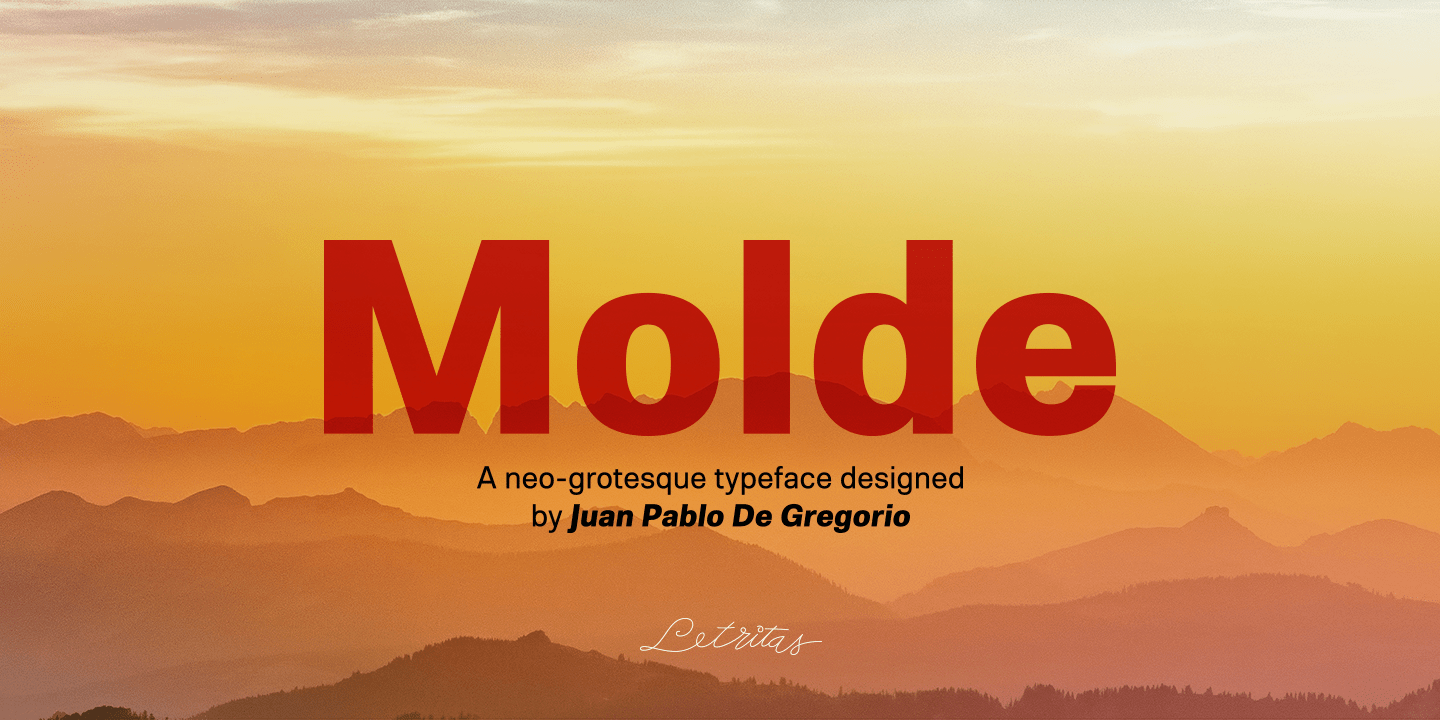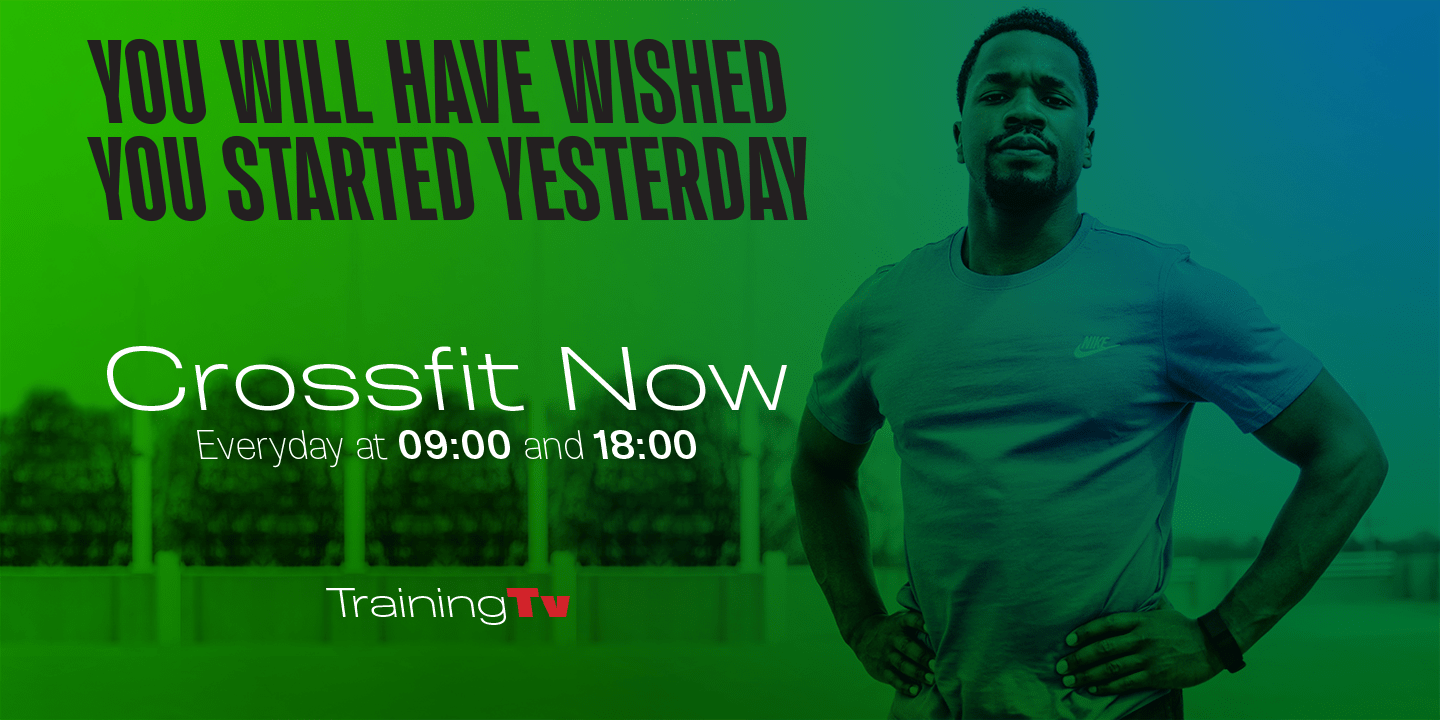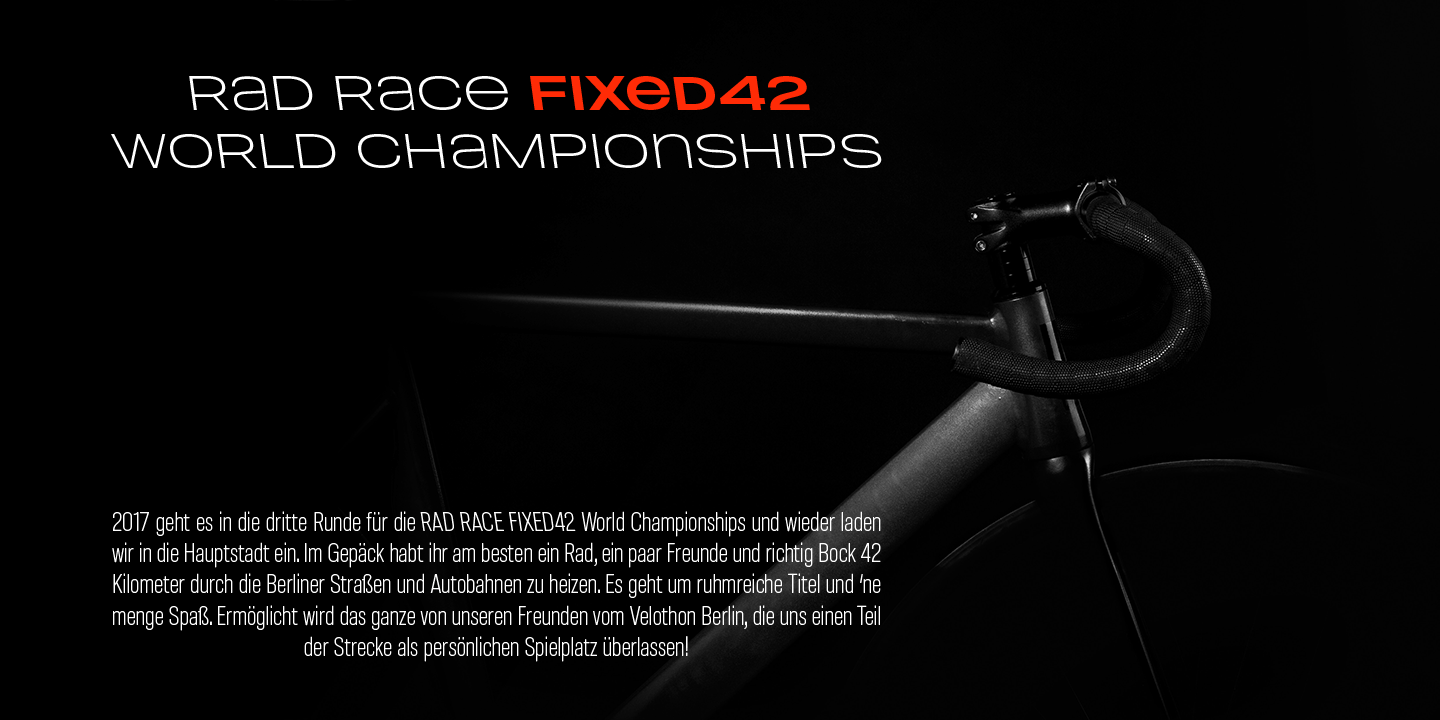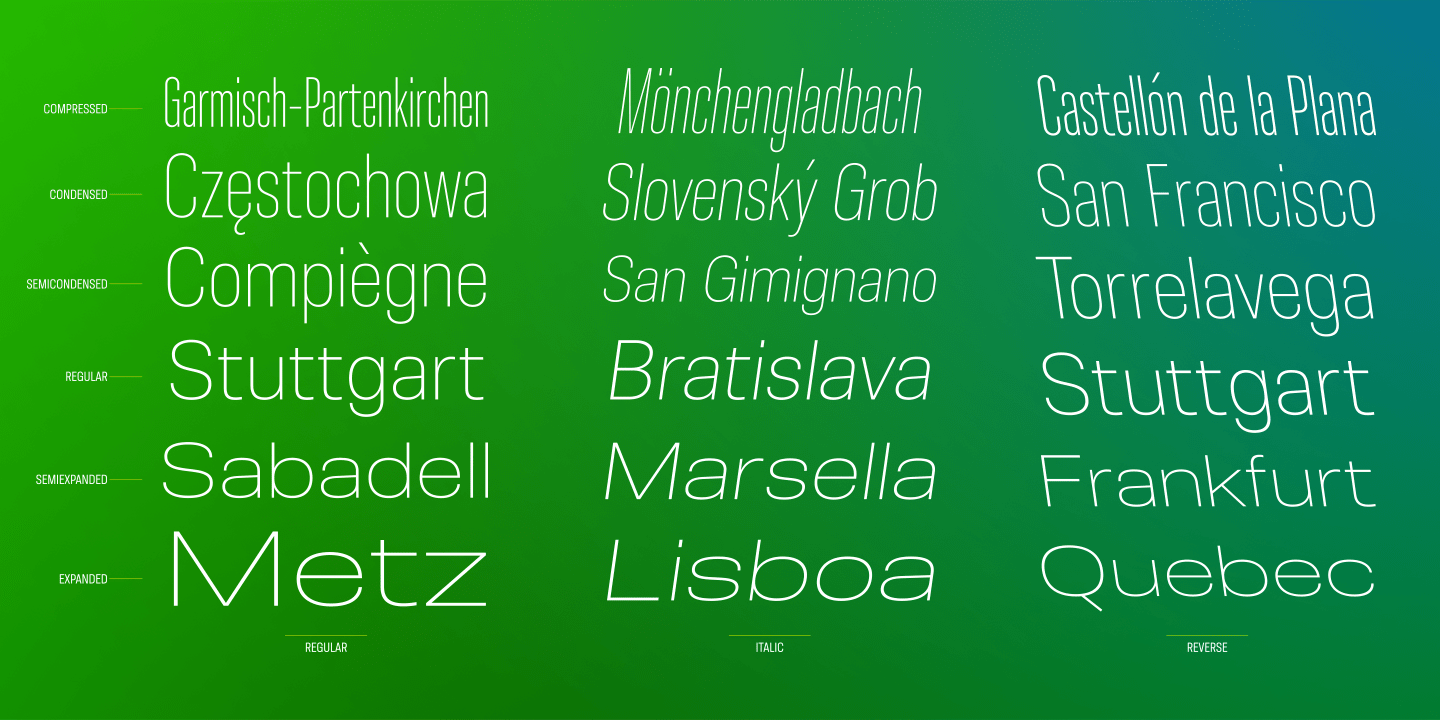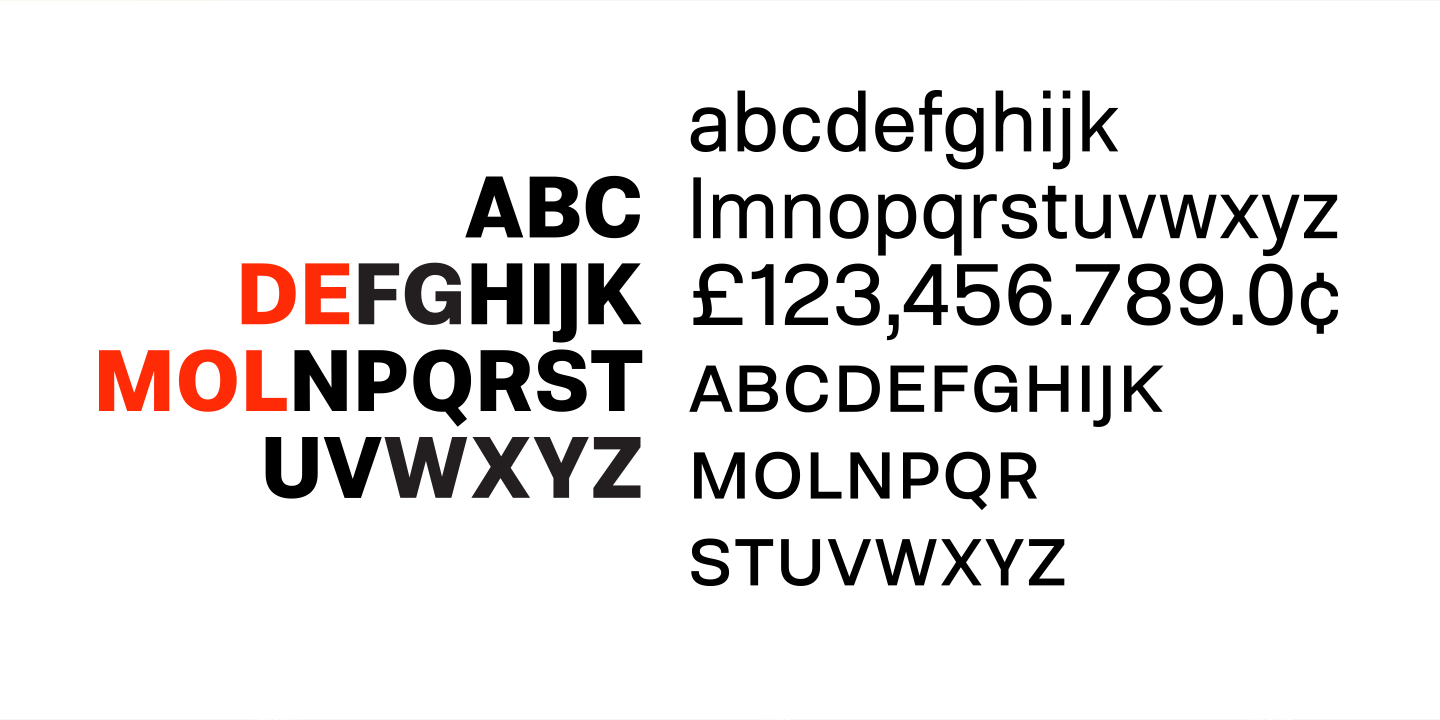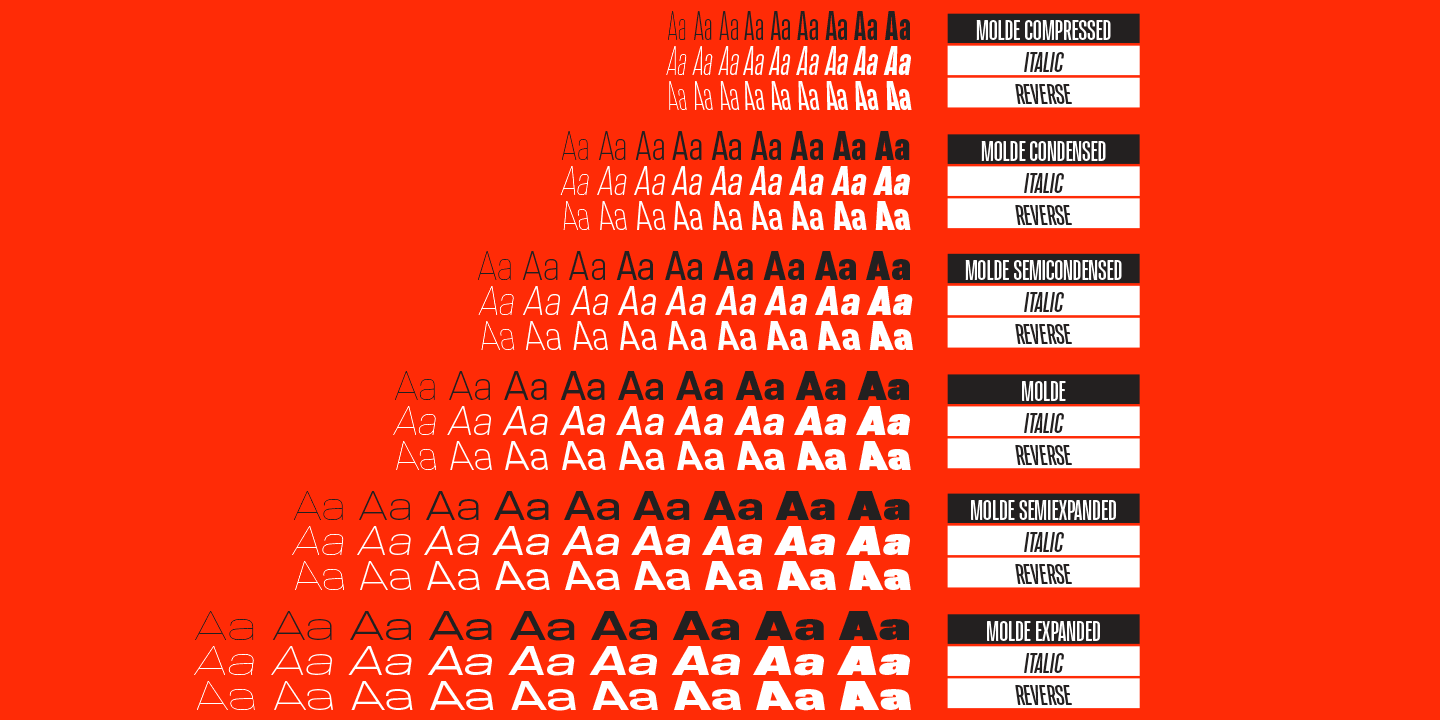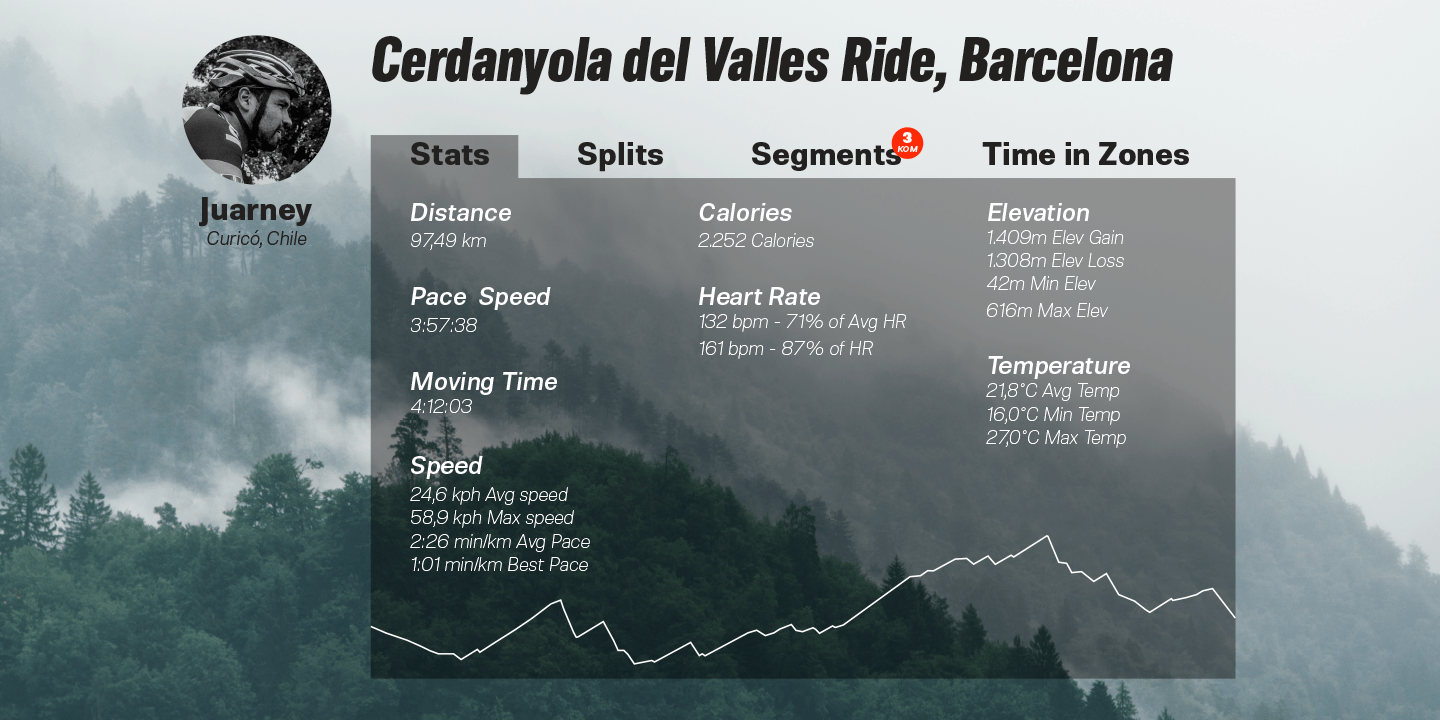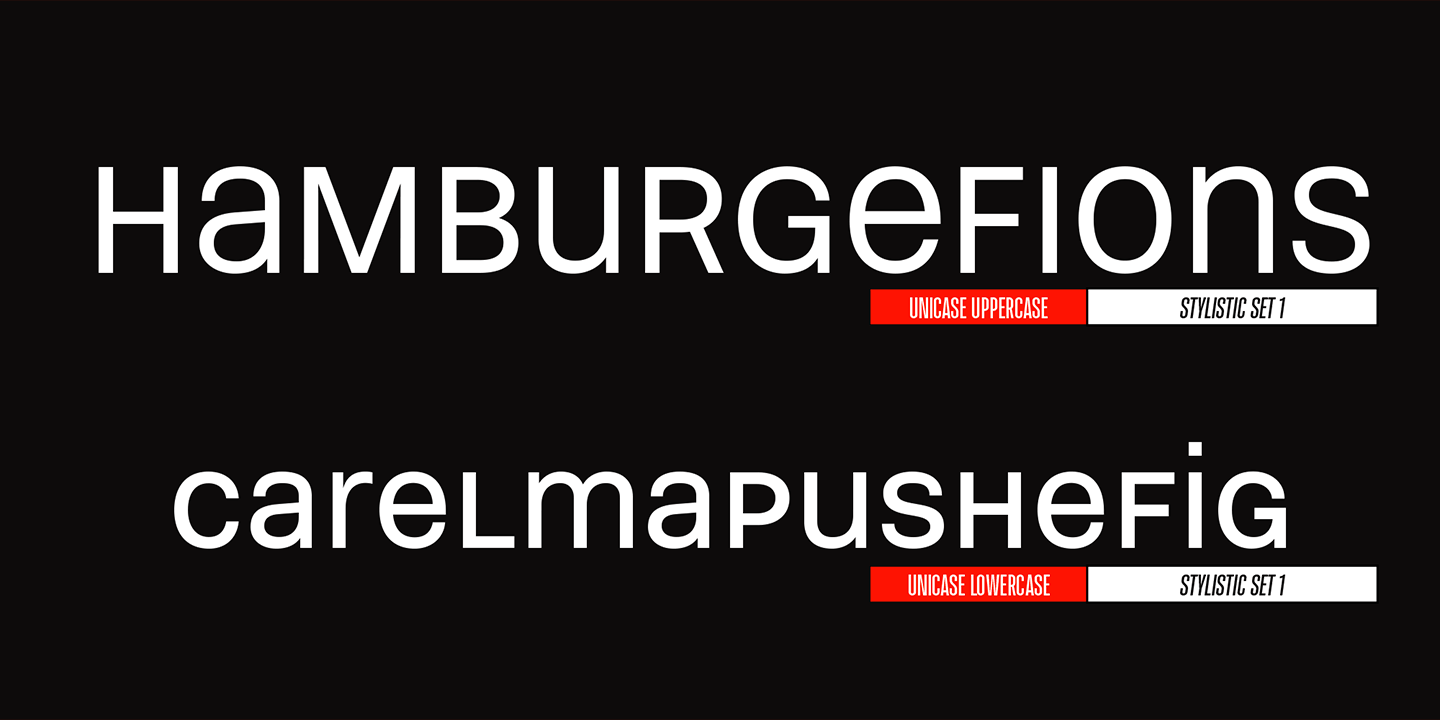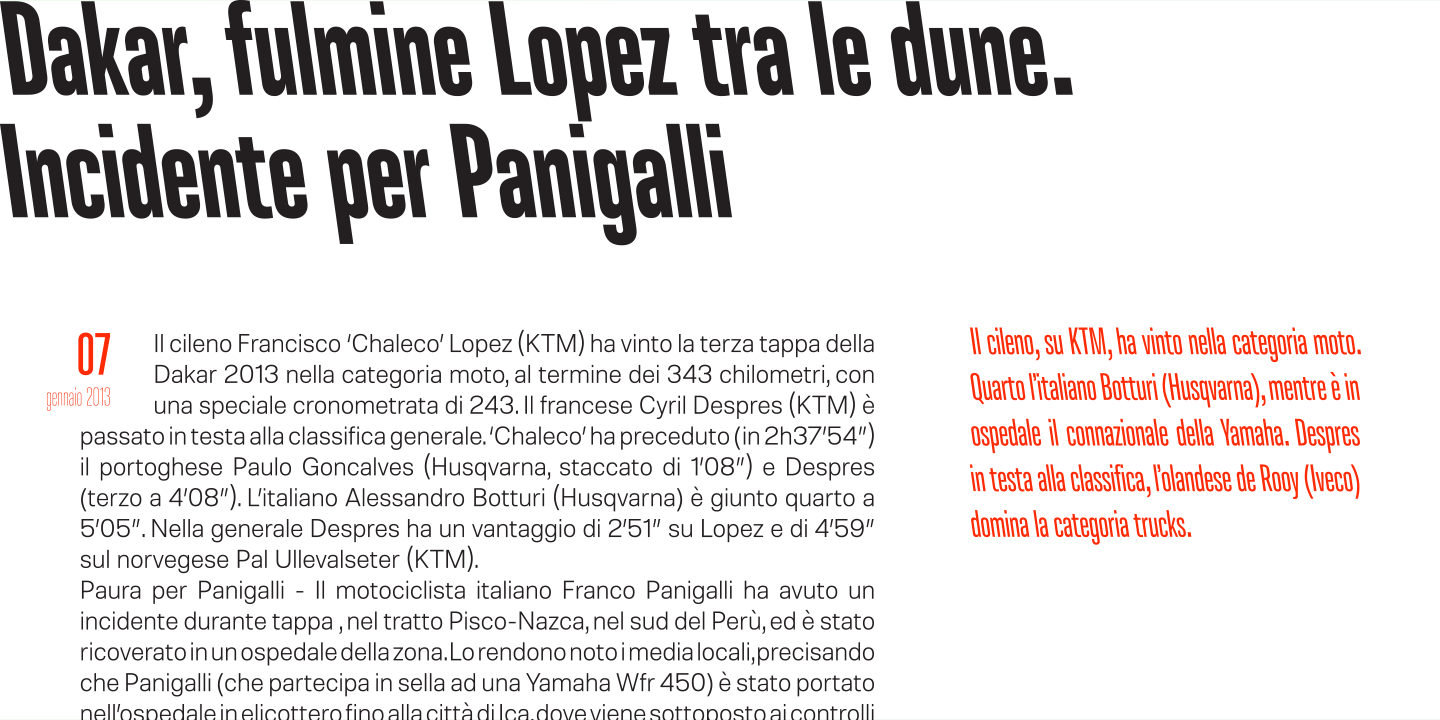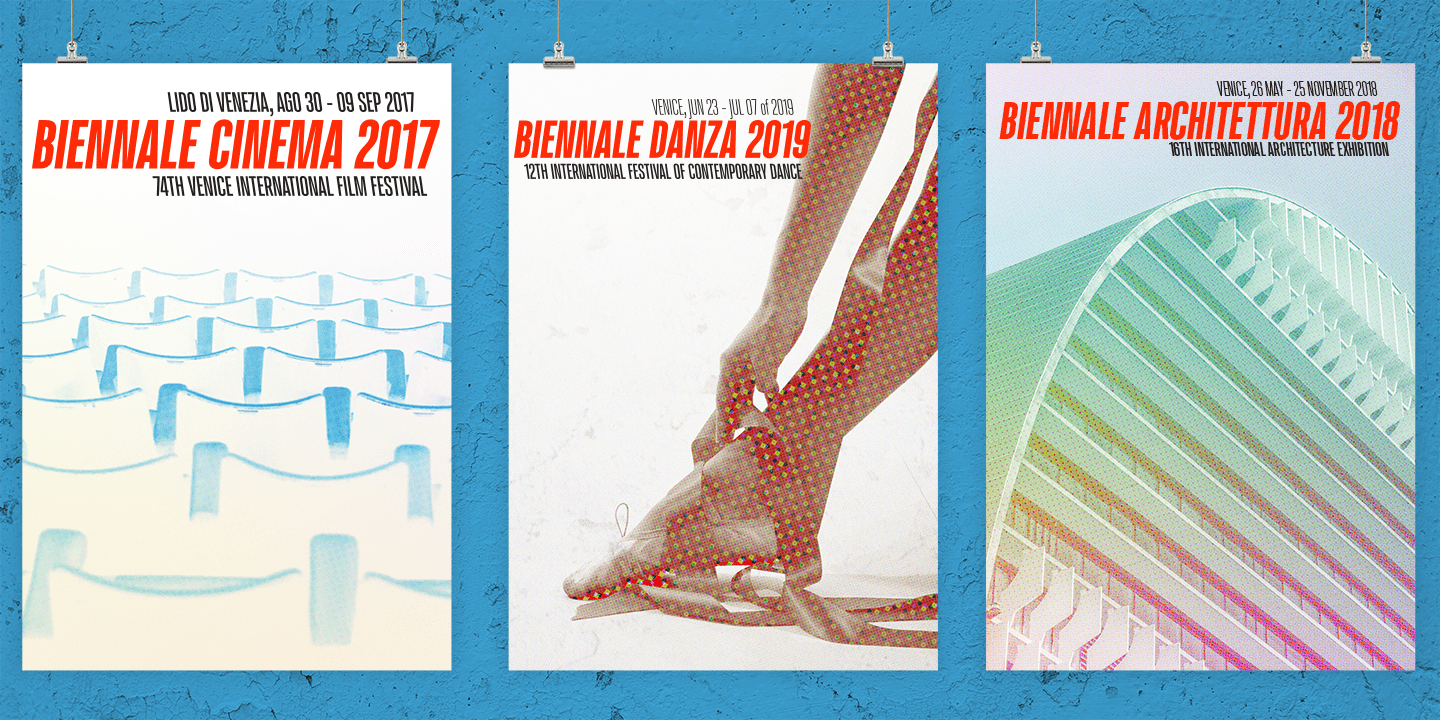
Molde
Molde is a super sans serif font family, belonging to the neo-grotesque style. Formally, Molde was inspired by the extreme sobriety of famous post-Bauhaus Swiss Movement of the mid-twentieth Century. The masters of this style are famous for eliminating all the ornaments,as a brilliant mind said “Ornament und Verbrechen”(Ornament and Crime) as a creation law: ending up with only the essential.Thanks to the purity of its shapes, Molde spreads the message as clear as possible and this quality makes it much more versatile than any other typography.
Molde can be therefore used in all types of designs, If we consider its personality and its amount of weights and widths.
Molde is composed of 6 widths ranging from the tablet to the expanded and in the set of characters includes a Unicase version and a small caps version.
The family is composed of 3 parts: the regular version, the italic version and the reverse version.